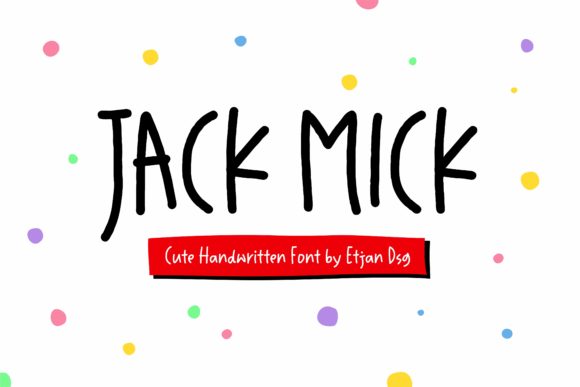
Embark on an enchanting typographic journey with Jack Mick Font, a captivating script font family carefully crafted by Etjan Dsg. Designed to spark imagination and add a touch of whimsy to your creative projects, Jack Mick Font is the perfect choice for those seeking a playful and distinctive handwritten font.
Immerse yourself in a world where letters dance and words come alive. Jack Mick Font's charming and quirky characters exude a sense of childlike wonder, making it an ideal font for children's books, whimsical invitations, playful logos, and heartwarming social media posts.
With Jack Mick Font, transform your designs into captivating masterpieces that resonate with your audience. Its free-flowing strokes and playful curves create a sense of movement and energy, drawing the reader's eye and capturing their imagination.
Discover the endless possibilities of Jack Mick Font and unleash your creativity. Let your words dance across the page, carrying messages of joy, laughter, and pure delight.